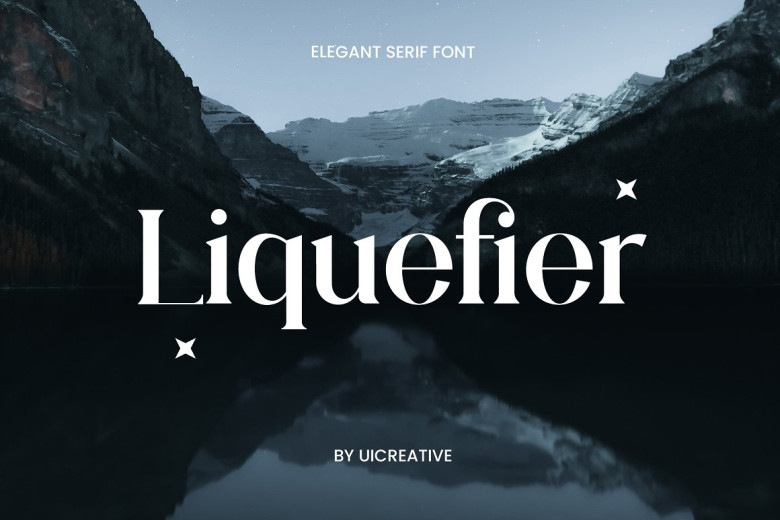
Liquefier Font
Liquefier font is an elegant serif typeface that for its beauty, class and modernity is ideally suited to a wide range of projects such as signature, stationery, logo design and wedding invitations. This versatile piece will also find itself artfully debossed onto literary works covers or given high-position within the headers for websites, articles written for magazines–or just about any product label!
Liquefier Serif Font